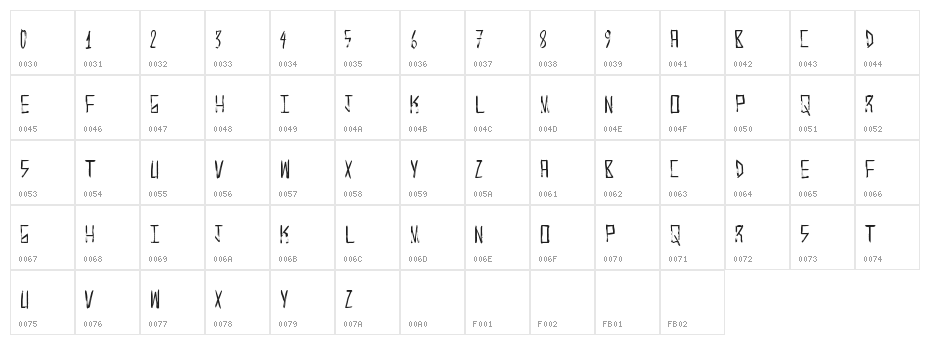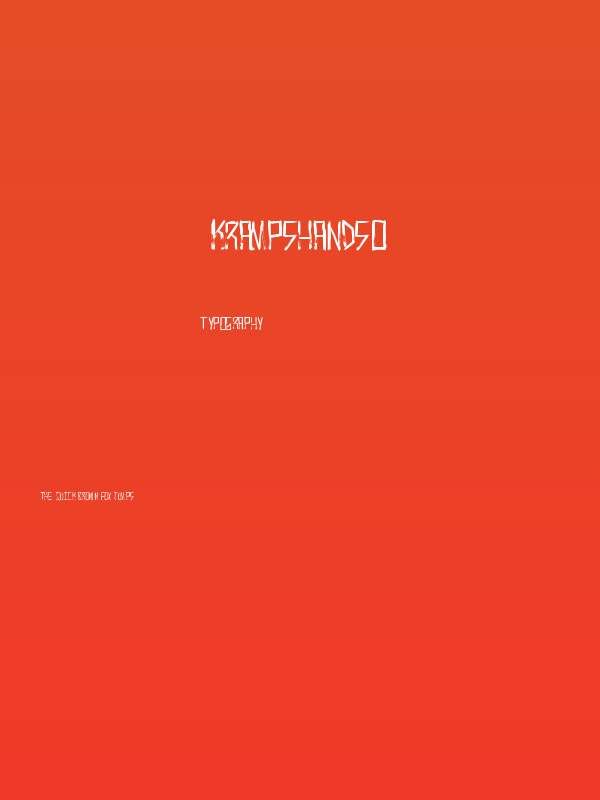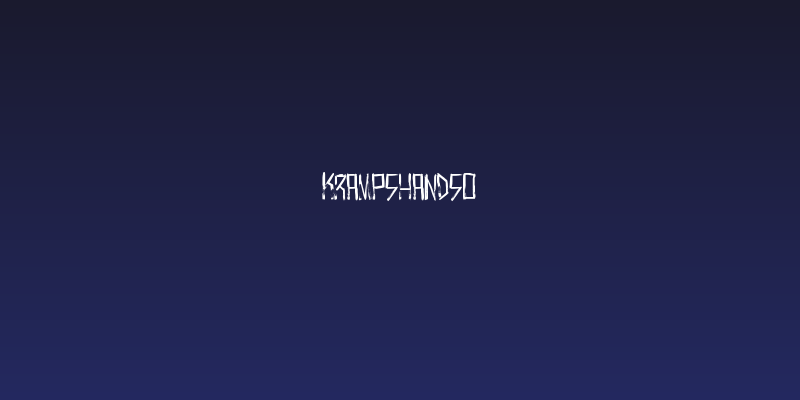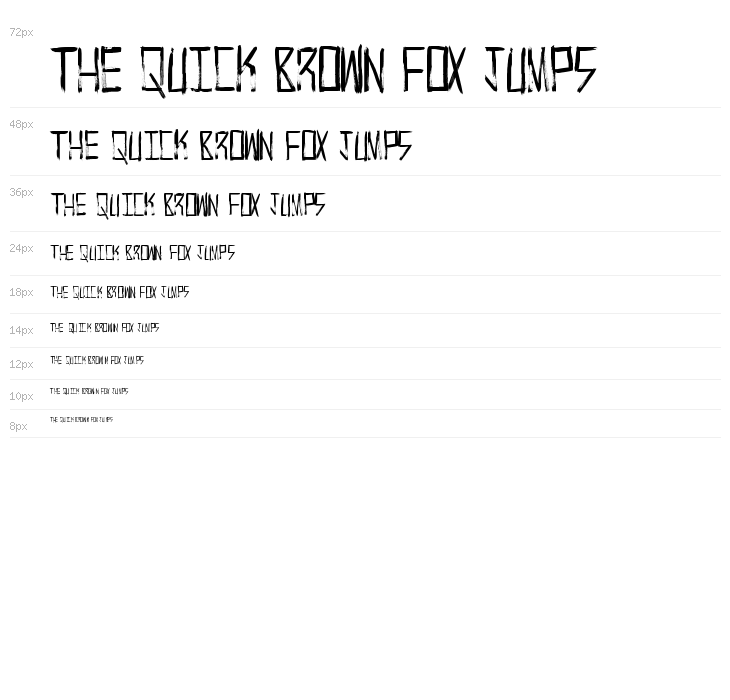
KrampsHandso Font
KrampsHandso Description
This font features a distressed, hand-drawn style that gives it a rugged and edgy appearance. The uppercase letters are angular and sharp, with uneven strokes that create a sense of movement and energy. The lowercase letters maintain the same rough texture, adding to the font's unique character. Numbers are similarly styled, ensuring consistency throughout. The font's irregularities and bold strokes make it stand out, ideal for projects that require a bold statement. Its artistic flair and distinctive look make it suitable for creative designs, posters, and branding that aim to capture attention and convey a sense of individuality.
| Proposed Projects | Ideal for posters, album covers, branding, and creative projects that require a bold, artistic touch. |